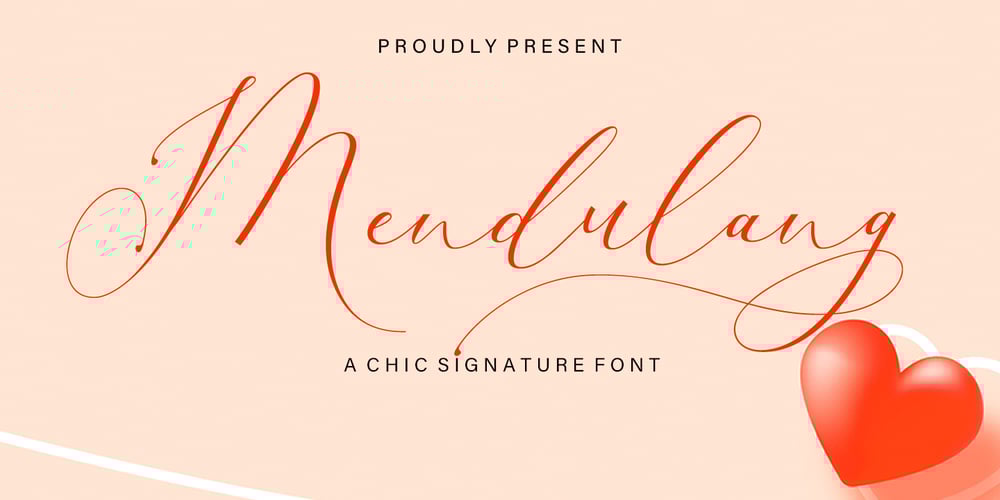
Mendulang Font Family was designed by Teuku Muslyawan and published by DonyaDesign. Mendulang contains 1 styles and family package options. Mendulang Script consisting of a fashionable sophisticated signature-style script with its own unique curves and an elegant inky flow.Mendulang Script is perfect for branding projects, logo, wedding designs, social media posts, advertisements, product packaging, product designs, label, photography, watermark, invitation, stationery and any projects that need handwriting taste.What’s Included :Standard & Multilingual glyphsLigaturePUA Encoded Characters – Fully accessible without additional design software.Fonts include multilingual support